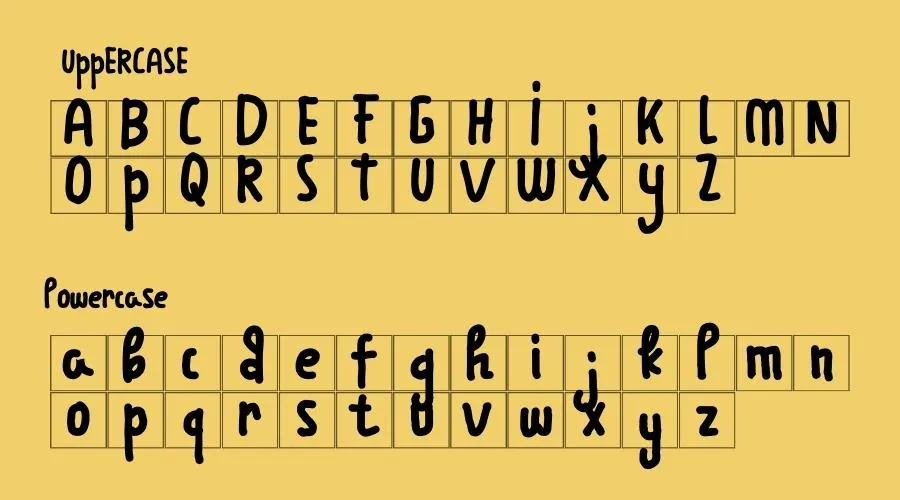
Over the Moon Font
About Over the Moon Font
In this article, we shall present to you a very elegant and attractive texture called Over the Moon Font. It was invented by SharkStudio and looks like the handwritten typeface family. Which emulates fast hand draw writing.
This typeface is categorized into handwritten categories. You can utilize the content generator to change over your content into multiple styles. The units per EM of this typeface is 1000. It has the embedded rights of endless structure and the family style of this outstanding texture is Scripts.
With its many features, the Over the Moon Font is ideal for a range of tasks and approaches. It may be used to make logos, posters, banners, social media posts, Instagram bios, and many other things.
This is simple to use with the hamilton font to create a variety of projects. It is a flexible and distinctive texture that may be used to construct greeting cards, business cards, birthday cards, and office cards.
What type of font is Over the Moon Font?
The Over the Moon Font was invented by SharkStudio and looks like the handwritten typeface family.
Who is the designer of the Over the Moon Font?
It was invented by SharkStudio and looks like the handwritten typeface family. Which emulates fast hand draw writing.